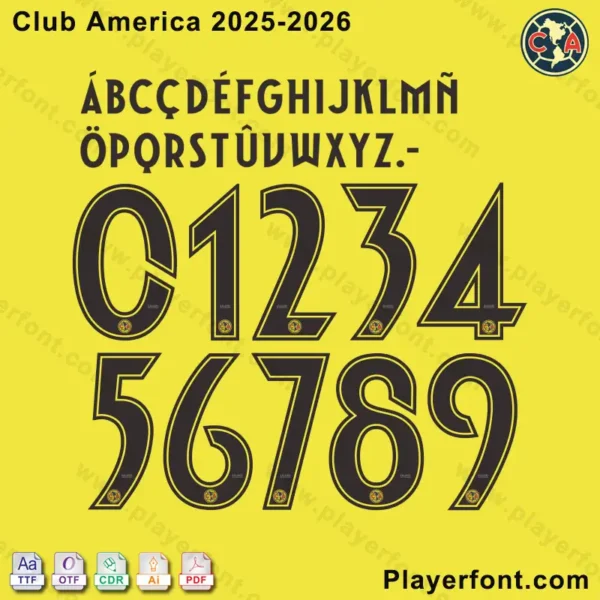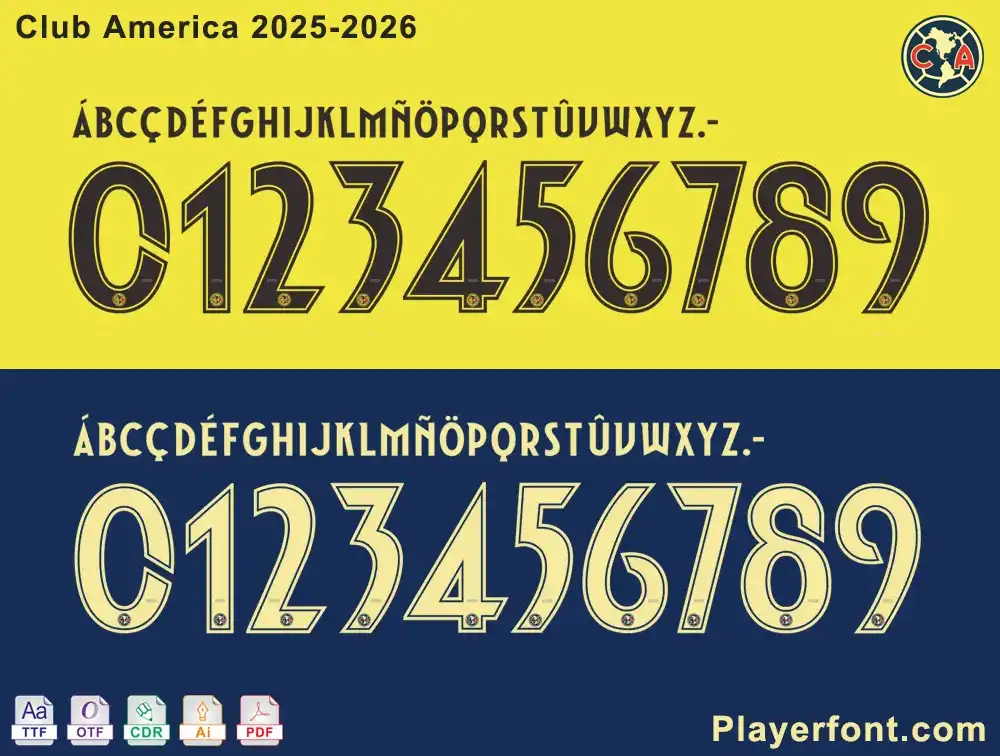
Club América 2025-2026 Font Download
Elevate your Club América fan gear with our exclusive Club América 2025-2026 Font Download. Designed to replicate the authentic typography used on the club’s jerseys for the upcoming season, this font package is a must-have for designers, fans, and anyone looking to create custom soccer apparel.
Club América 2025-2026 font with black numbers and outlines on yellow background, showing TTF, OTF, AI, CDR, PDF download options.
Club América 2025-2026 jersey font for download, featuring full alphabet and numbers.
• Authenticity: Meticulously recreated to match the official Club América 2025-2026 jersey font.
Club América 2025-2026 home jersey font numbers 0-9 and alphabet, black on yellow, with Club América logo.Club América 2025-2026 Font Download